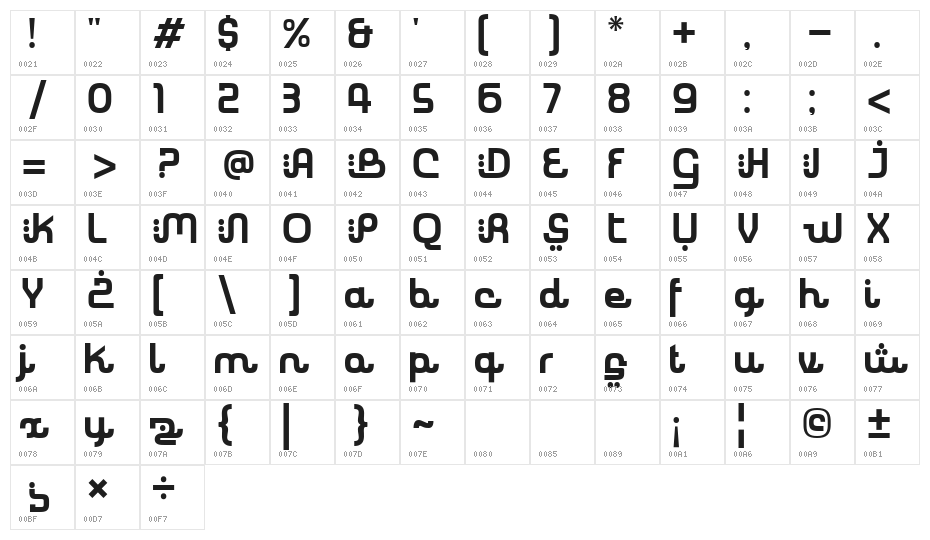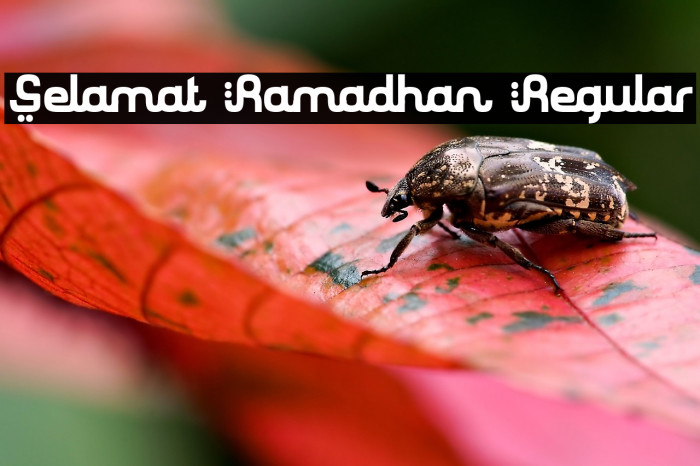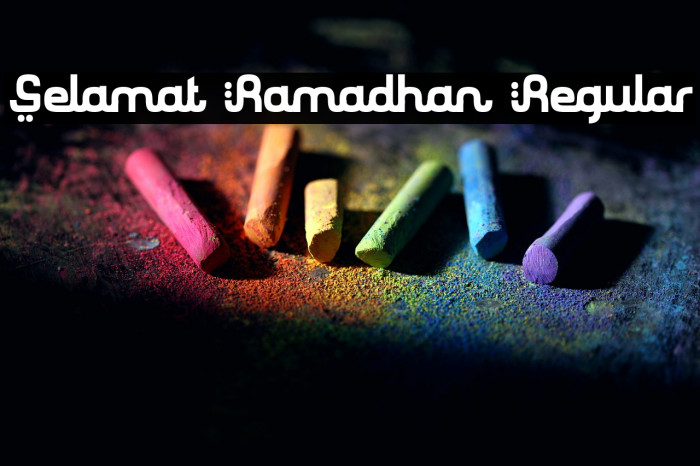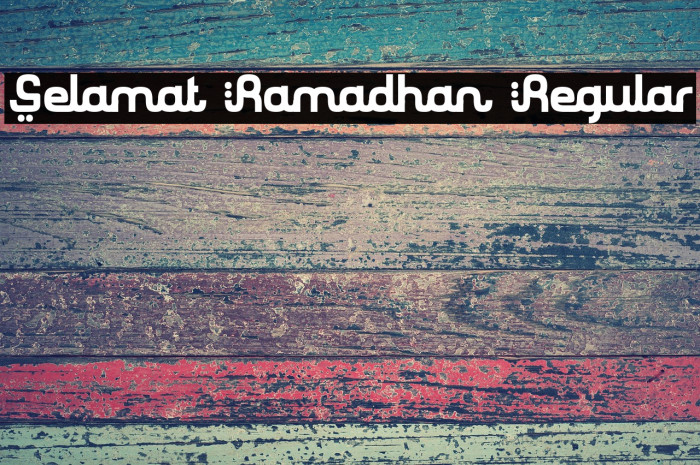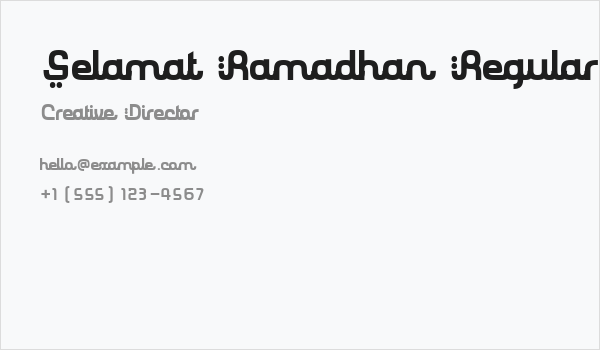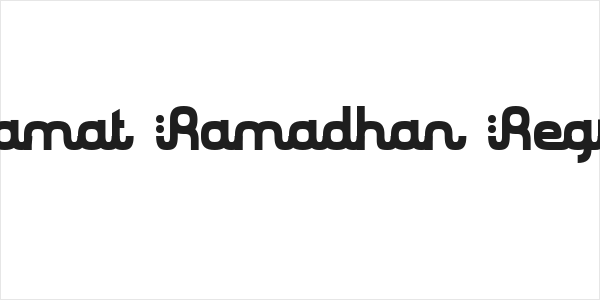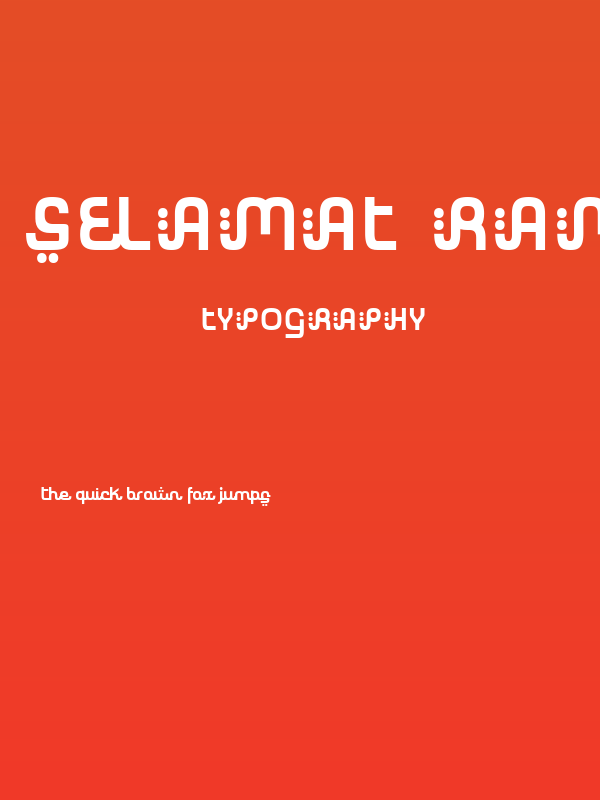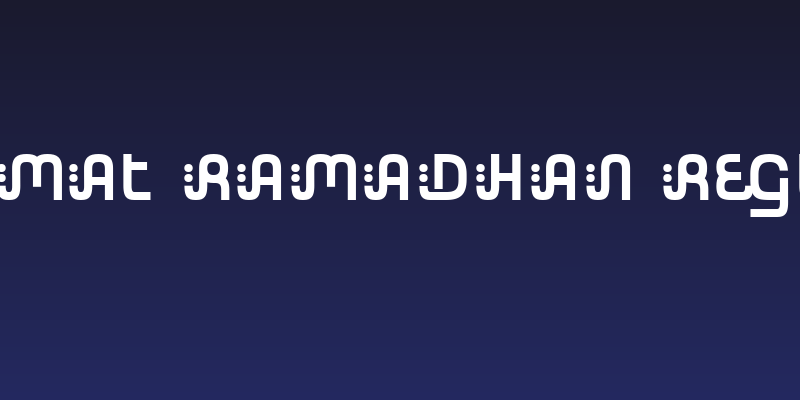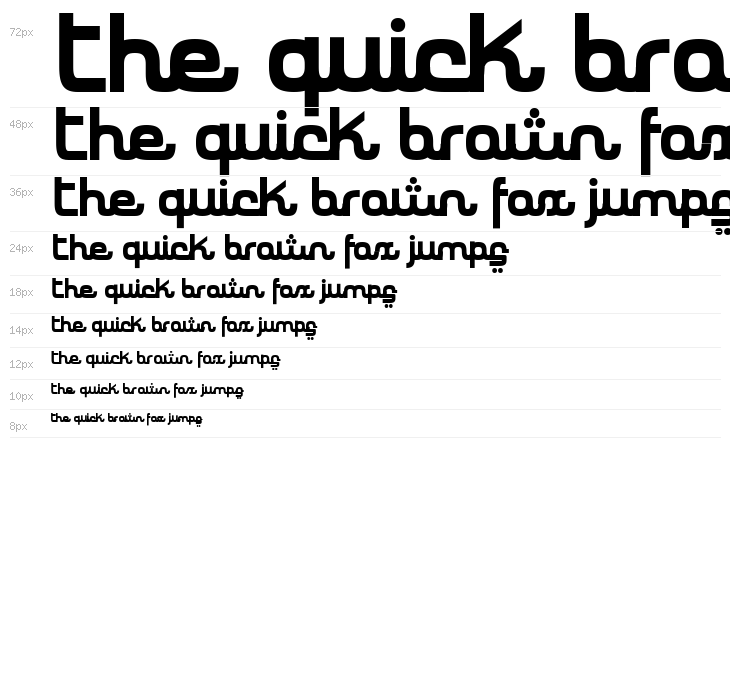
Selamat Ramadhan Regular Font
Selamat Ramadhan Regular Description
This font features a unique and modern design with a distinct geometric style. The uppercase letters are characterized by bold, rounded shapes with consistent stroke widths, giving them a strong and cohesive appearance. The lowercase letters maintain a similar geometric form, with some characters featuring distinctive loops and curves that add a playful touch. The numerals are clear and easy to read, following the same geometric principles. Special characters are well-integrated, maintaining the overall aesthetic. This font's design is both contemporary and versatile, suitable for a wide range of applications.